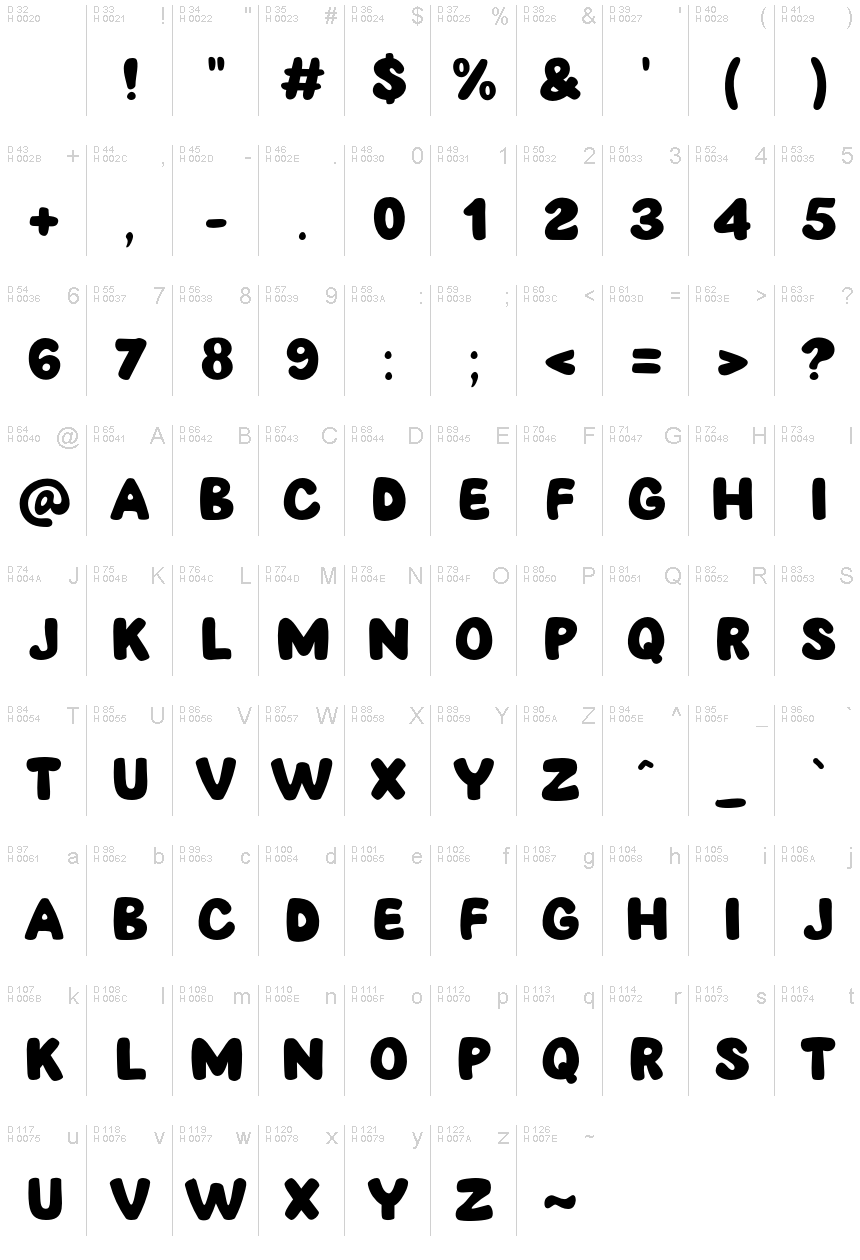
Lazy People
Lazy People font by MJType is a bold, cartoon-style display font that adds a playful touch to any design project. Its whimsical, exaggerated shapes convey a sense of carefree creativity ideal for children's books, comic strips, or playful branding. This free font's charming appeal makes it perfect for eye-catching headlines and fun event invitations.